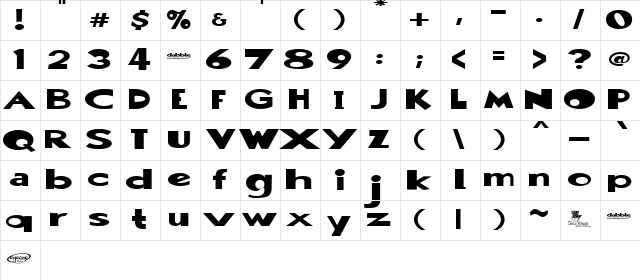
Dabble Combo is a composed and adaptable typeface that performs quietly and consistently across a wide range of design contexts.
Pro Tip: Use Dabble Combo in both headline and body roles to test its range before committing to a single application.